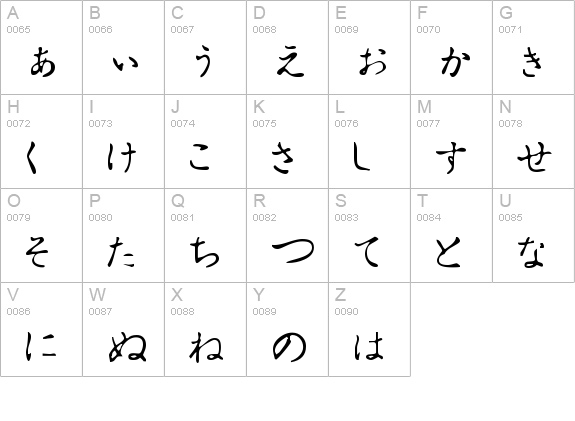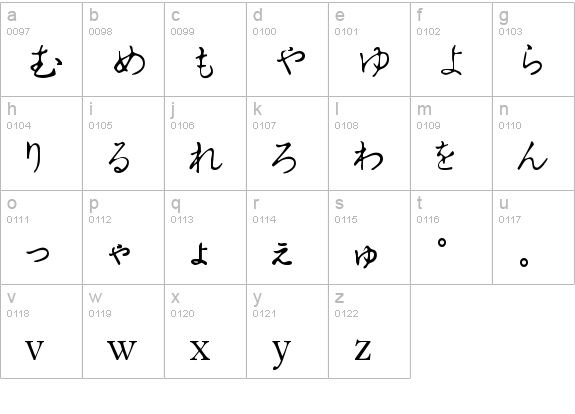
Hiragana Tryout font is a beautifully crafted typeface that captures the essence of traditional Japanese writing. With its elegant and fluid strokes, this font brings a sense of grace and sophistication to any design project. Whether you are creating a poster, invitation, or logo, Hiragana Tryout font will add a touch of Eastern charm to your work. The best part? Hiragana Tryout font is available for free download at FontsMarket.com. This means you can easily access this stunning font and use it in your projects without any cost. So why wait? Download Hiragana Tryout font today and elevate your designs with its timeless appeal.